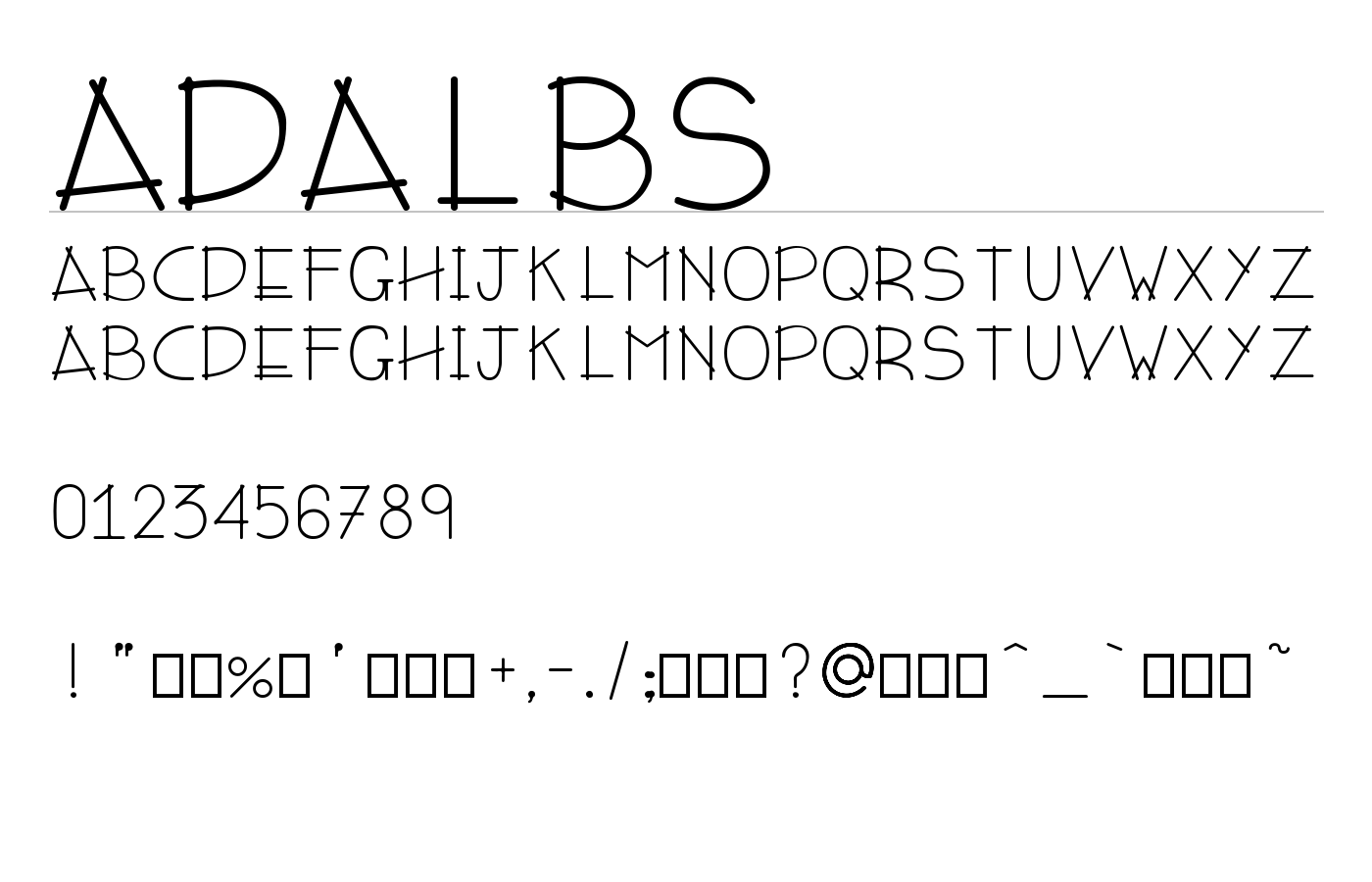
ADALBS is a quirky, hand-drawn sans serif font with a playful and informal vibe. Its thin, uneven strokes and unique letter details give it a casual yet creative feel, making it perfect for fun branding, children’s products, or artsy projects where a lighthearted, approachable style is desired. This font works best in headlines, logos, or any design that benefits from a distinctive, hand-crafted look.
ADALBS Font